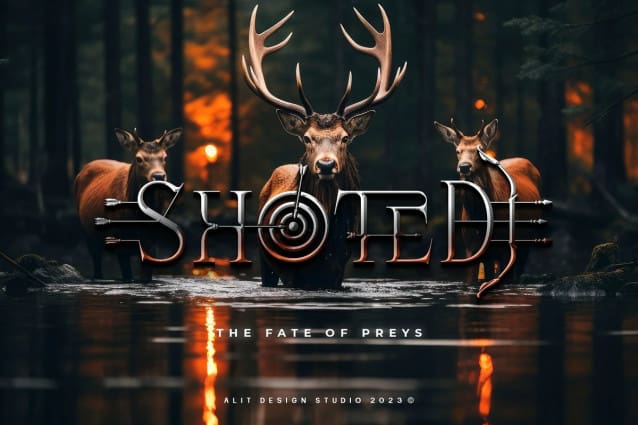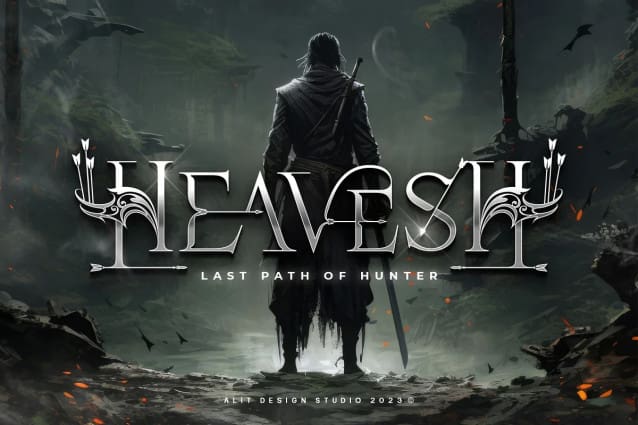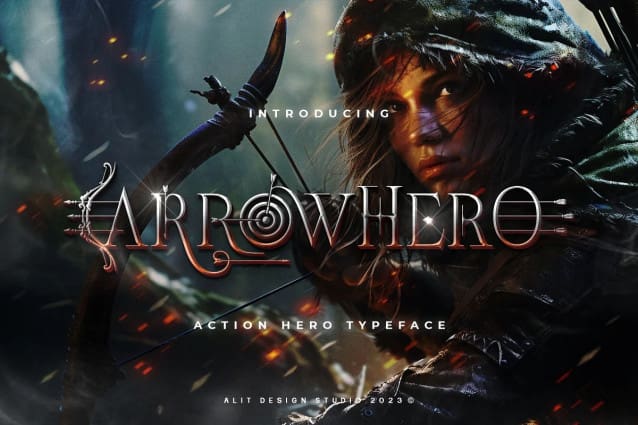
Arrow Hero Font
Arrow Hero Font –  This unique serif font seamlessly blends the mystique of archers, the allure of elves, and the boldness of superheroes. Crafted with precision, this font is more than just letters; it’s a journey into a world where every curve and angle tells a story of heroic feats and enchanted realms.
Key Features:
Elegant Serif Design: The Arrow Hero font boasts a sophisticated serif style that adds a touch of refinement to your projects. Each letter is meticulously crafted to exude an aura of strength and grace, perfectly suited for a variety of design applications.
Illustrated Elements: Dive into the fantastical with Arrow Hero’s unique illustrations. Arrows gracefully adorn each character, symbolizing precision and direction. Delicate elf ears and majestic wings enhance the overall aesthetic, creating a harmonious balance between the worlds of archers, elves, and superheroes.
Versatile Usage: Whether you’re working on branding, book covers, invitations, or digital designs, Arrow Hero is a versatile font that adapts to various contexts. Elevate your projects with a touch of magic and heroism that this font effortlessly provides.
Tailored for Storytelling: Arrow Hero is not just a font; it’s a storyteller. Use it to bring narratives to life, creating visual experiences that resonate with the mythical and the extraordinary. Let the characters on your screen or page become heroes in their own right, guided by the elegance of Arrow Hero.
Multiple Styles: The font comes in various styles and weights, allowing you to express different moods and atmospheres within your designs. Whether you’re aiming for a bold statement or a subtle enchantment, Arrow Hero has the right style for you.
Elevate your design projects to new heights with Arrow Hero, where the elegance of serif meets the magic of arrows, wings, and elf ears. Download this font today and embark on a design journey that transcends the ordinary, celebrating the hero within every letter.